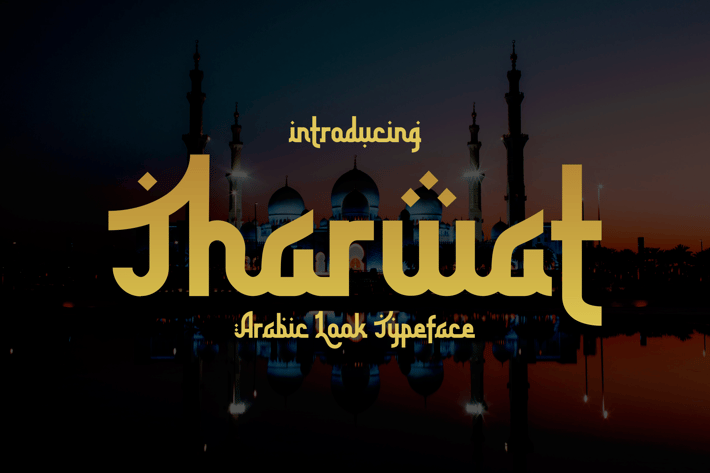
Tharwat - Arabic looking font
Tharwat
Tharwat is an expressive Arabic-look display typeface that blends geometric precision with cultural resonance. Its sharp terminals, tall x-height, and calligraphy-inspired flourishes evoke a refined Middle Eastern aesthetic. The font carries a sophisticated vibe—bold yet respectful—making it ideal for spiritual graphics, religious event branding, and editorial design. Designed with visual balance and historical influence, Tharwat’s structure features angular cuts, rhythmic flow, and culturally symbolic energy, giving your text a deep sense of identity and meaning.
Tharwat was crafted for designers looking to create meaningful, emotion-rich visuals that bridge modernity with tradition. Use it for Ramadan campaigns, packaging for halal products, book covers, Islamic school branding, or content focused on cities like Istanbul, Qahirah, and Cordova. Whether you're making spiritual quote posters or editorial spreads, Tharwat communicates reverence, beauty, and heritage with every letter.
Key Features :
Design with Depth and Identity
- Arabic-Inspired Letterforms: Captures Islamic visual traditions while staying legible in Latin script
- High Contrast & Elegance: Sharp strokes and unique structure bring attention to your message
- Ideal for Purposeful Projects: Perfect for cultural branding, book titles, event posters, and packaging
- Memorable & Evocative: Creates a mood of reverence, richness, and timeless design
- Basic latin A-Z and a-z
- Numbers
- PUA Encoded Characters